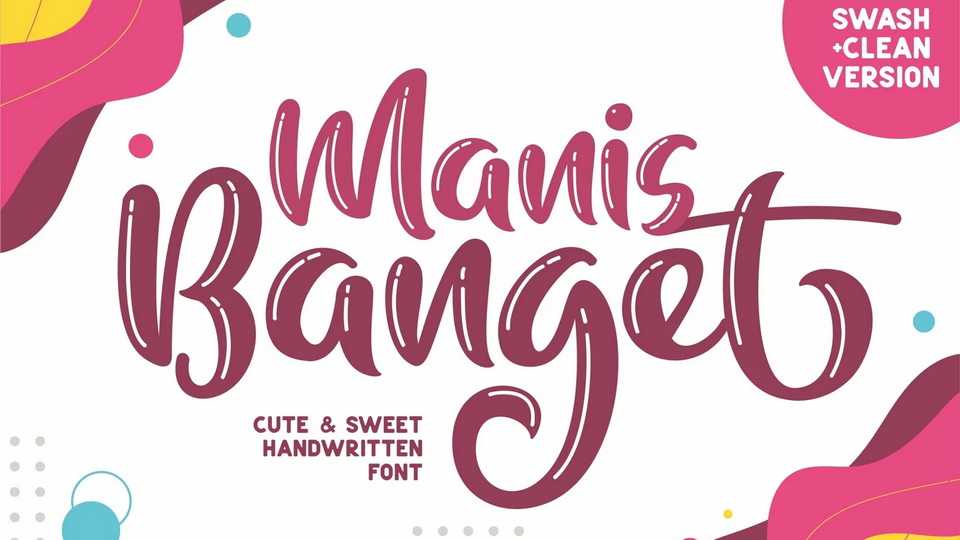
Download Manis Banget is a nice and sweet hand lettered typeface. This font perfectly made to be funny and playful for various informal design such as invitations, labels, logos, magazines, books, packaging, lettering or any type of advertising purpose.